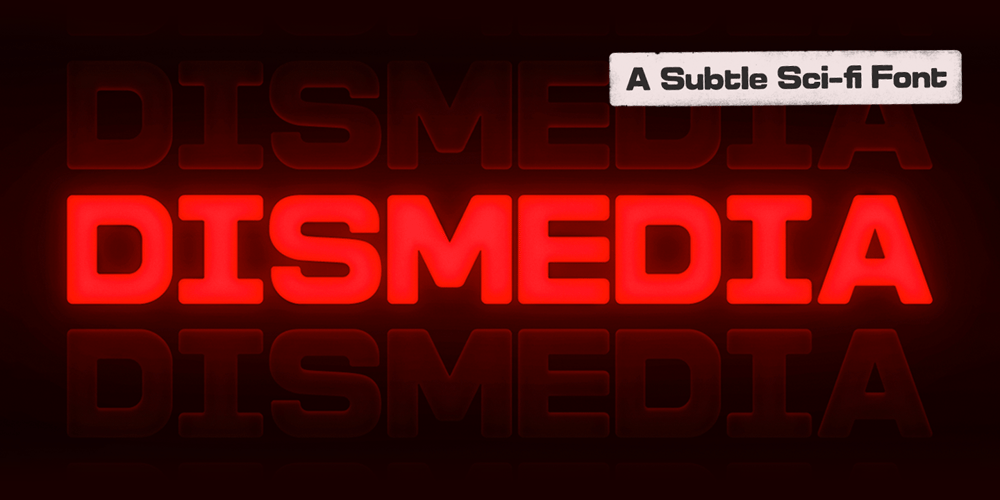
Dismedia Font Family was designed by Lee Mounsey-Smith and published by Lee Mounsey. Dismedia contains 1 styles and family package options. Dismedia: A Bold Display Typeface with a Subtle Retro Sci-Fi Aesthetic. While a lot of futuristic, cyberpunk and techno themed typefaces can often be over-the-top, unreadable or cheesy, Dismedia takes a more subtle approach with its design. Inspired by the wide futurist fonts of the 1970’s and 80’s, its rounded corners and bold linework was built to invoke the atmosphere of a future envisioned by the past. Whether on VHS covers in 1984; nightclub signs in 2084; or spaceship insignia in 2184, Dismedia will upgrade your design into a brand new era. [ Feature Set Includes: ] > A Display Typeface> A Bold Sans Serif with Rounded Corners> 430+ Glyphs> Ligatures & Stylistic Alternatives> Extended Mathematics & Currency Symbols> Language Support for 90+ Latin Languages Including: Afrikaans, English, French, Italian, Spanish & Swedish.